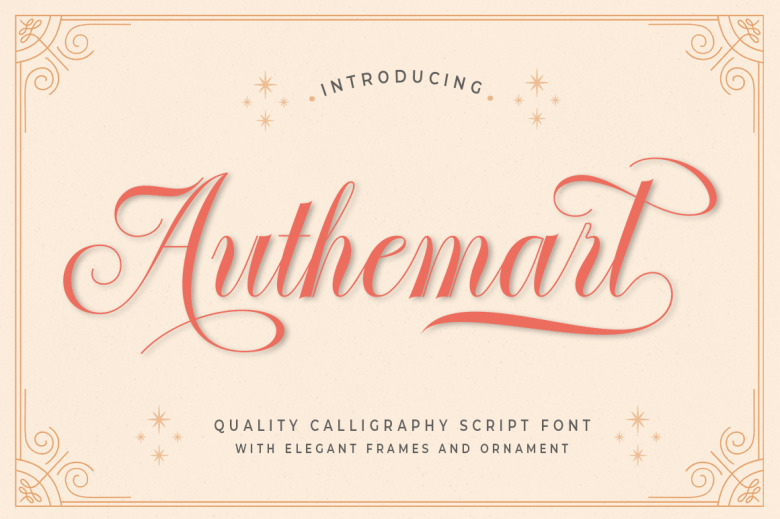
Authemart Font
Authemart Calligraphy Font is a high-quality script font that comes with modern and vintage touches. On the outside it has a smooth, clean, feminine-looking, glamorous and sensual look that can fit every kind of design looking for some classic appeal.
Authemart Calligraphy Script Font